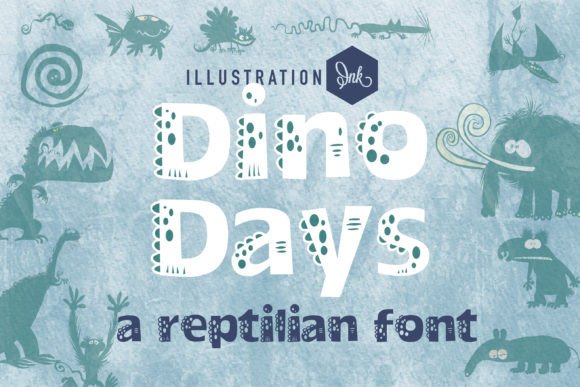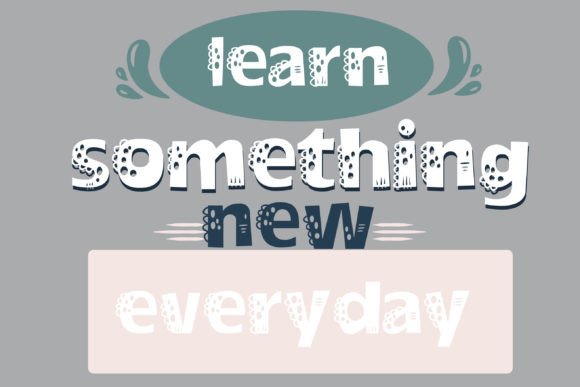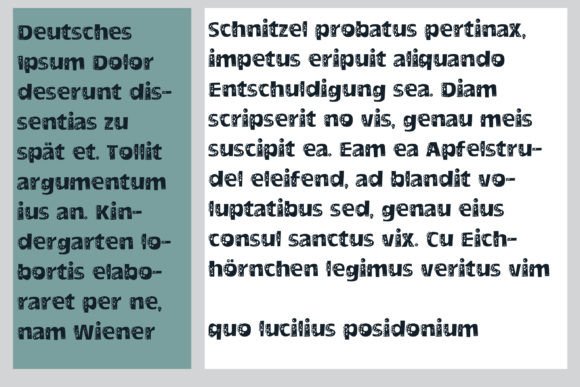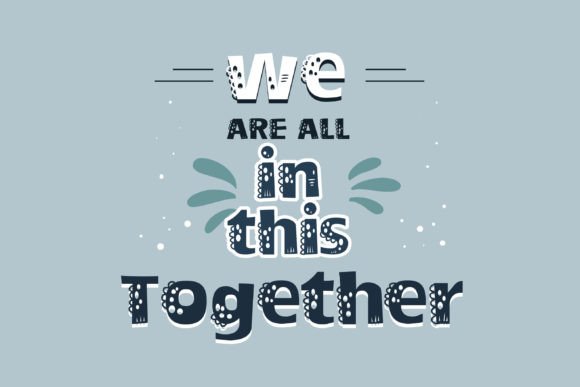
Dino Days Font
About the Dino Days Font
Crafted with precision, the Dino Days Font is ready to bring your ideas to life. Dino Days is a fun and playful font featuring decorative spikes inspired by dinosaurs. Perfect for adding a prehistoric touch to your projects, this font makes your text look like it’s from the age of dinosaurs, with each letter having cool, spiky accents. Ideal for kids’ designs, party invites, or anything that needs a quirky, dino-themed twist!
Dino Days excels in headlines, short bursts of text on posters, and playful branding applications like logos for children’s products or themed events. Its playful nature makes it unsuitable for body text or UI elements where readability is paramount; the decorative spikes can hinder legibility in longer passages.
This font pairs well with clean sans-serif fonts like Open Sans for a balanced contrast, or a more geometric sans-serif for a modern, slightly retro feel. For a softer touch, consider pairing it with a rounded serif font like Playfair Display. Avoid pairing it with other highly decorative fonts, which would create visual clutter.
Dino Days possesses a bold, friendly personality, best suited for projects targeting a younger audience or those needing a fun, memorable aesthetic. It’s ideal for conveying excitement and a sense of adventure.
Dino Days Font Example